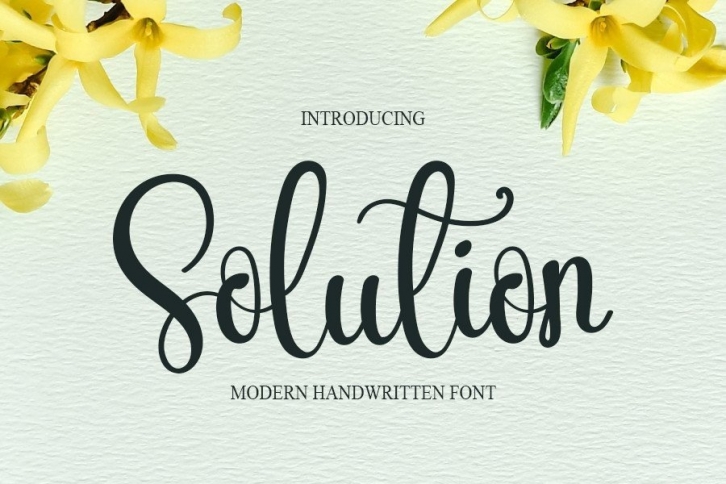
Solution is a beautiful and versatile display font with a unique feel and a stunning impact. It will add a lovely spark to any design or creative project you have coming up.